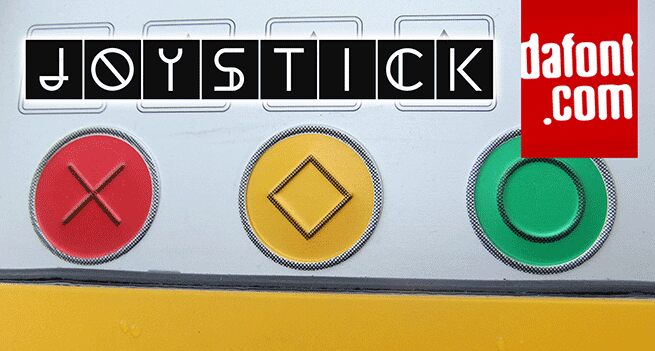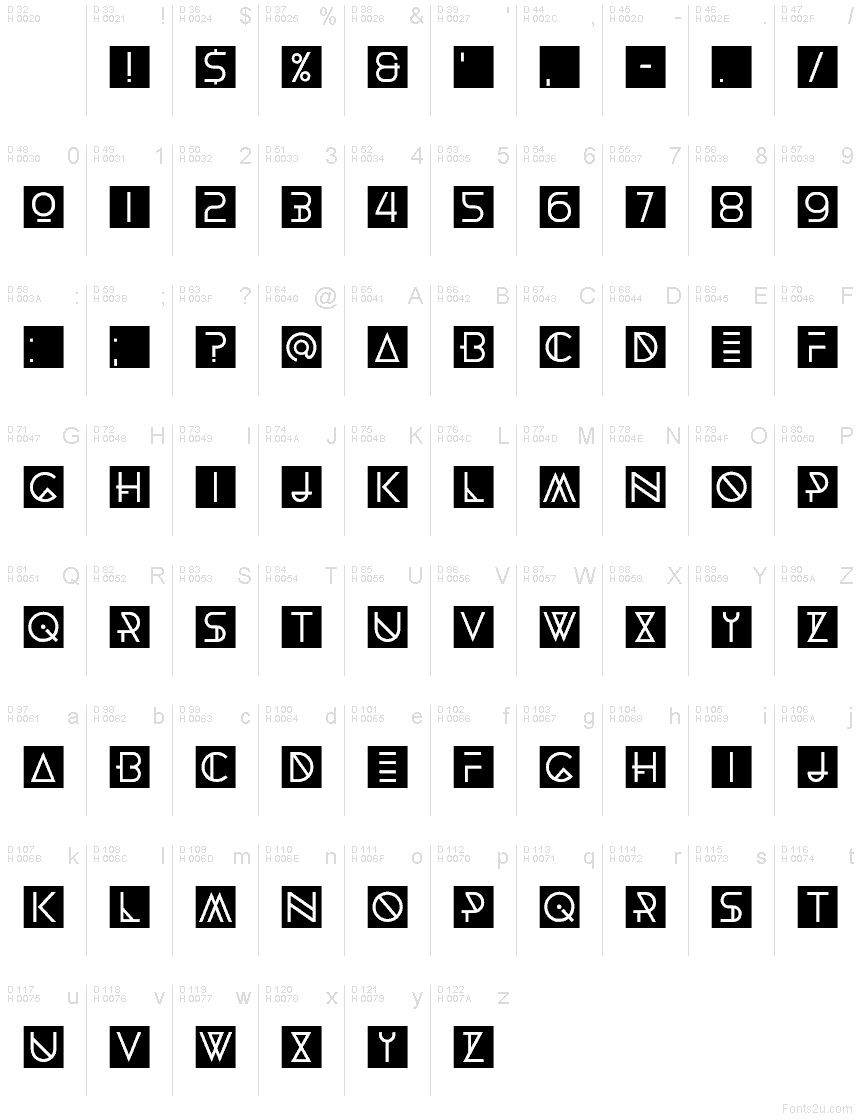
Joystick Regular
Joystick font by Vladimir Nikolic is a free futuristic display typeface. Its thin, monoline strokes feel like glowing wire, with tall, narrow forms and clever geometric quirks—note the slashed circular shapes and angular cuts that read like retro arcade circuitry. The rhythm is tight and upright, so words stack with a clean, techno snap without losing legibility.
Using Joystick, headlines jump off game menus, synthwave posters, esports logos, event flyers, tech product teasers, and stream overlays. This free font shines when set large with generous letterspacing; keep supporting text in a plain, modern sans to let the neon‑line personality do the talking.